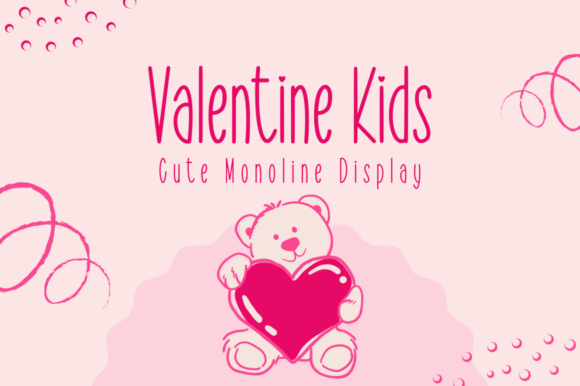
Dive into the world of Valentine Kids Font, a sans serif font family that exudes charm and playfulness. Each character dances with a tall and thin silhouette, adding a touch of whimsy to your designs. It's the perfect font for crafting children's books, school projects, or any project that demands a dash of elegance and delicacy.
With Valentine Kids Font, your words will come alive, captivating the hearts of young readers. Its graceful curves and smooth lines create a visual symphony that invites children into a world of imagination and wonder. Let your stories take flight with this font, creating a captivating experience that will leave a lasting impression.
Whether you're a seasoned designer or just starting your creative journey, Valentine Kids Font will be your trusted companion. Its versatility knows no bounds, making it ideal for a wide range of projects, from cheerful invitations to playful branding. Add a touch of magic to your designs and watch as your ideas bloom into stunning creations.
So, unleash your creativity and let Valentine Kids Font be your muse. Its enchanting aura will infuse your projects with a sense of joy and wonder, leaving a lasting impression on your audience. Embrace the magic of Valentine Kids Font and embark on a creative adventure that will captivate and inspire.